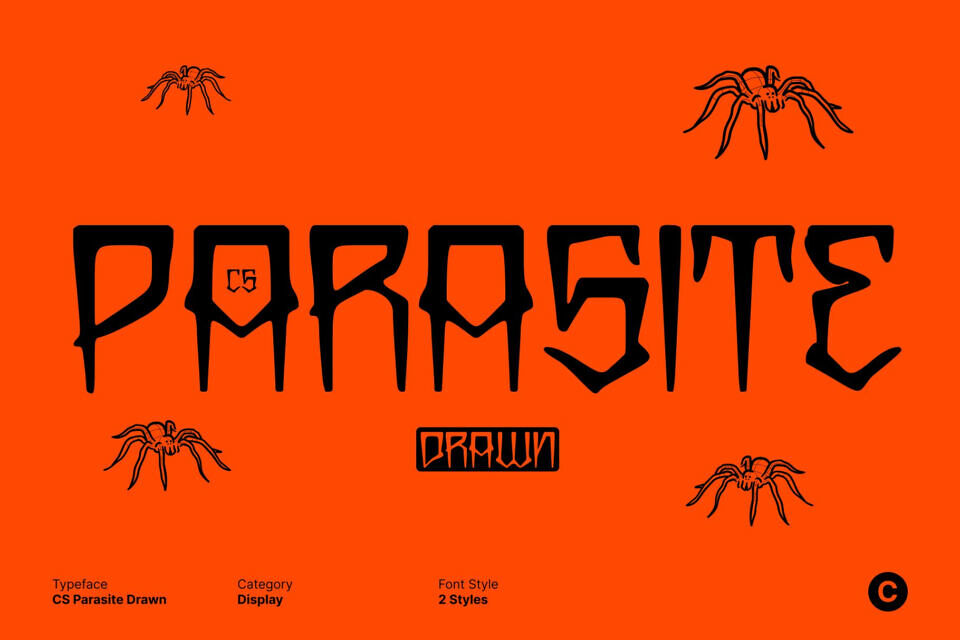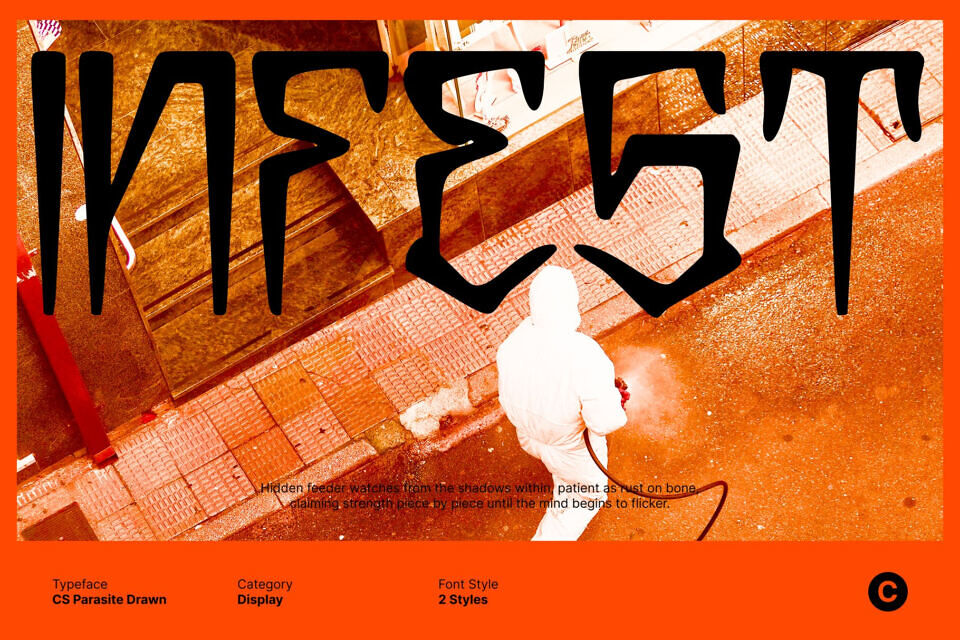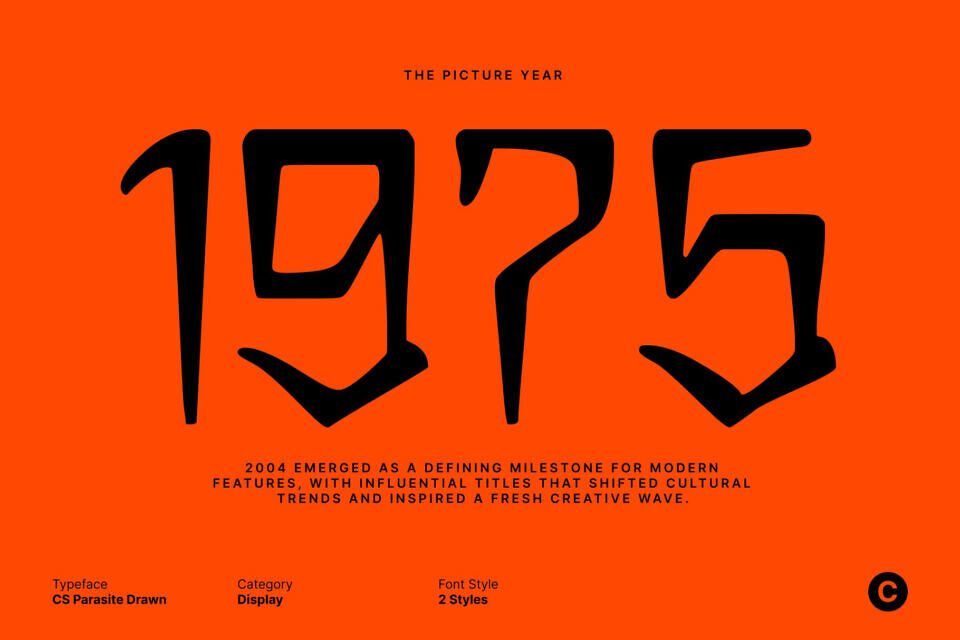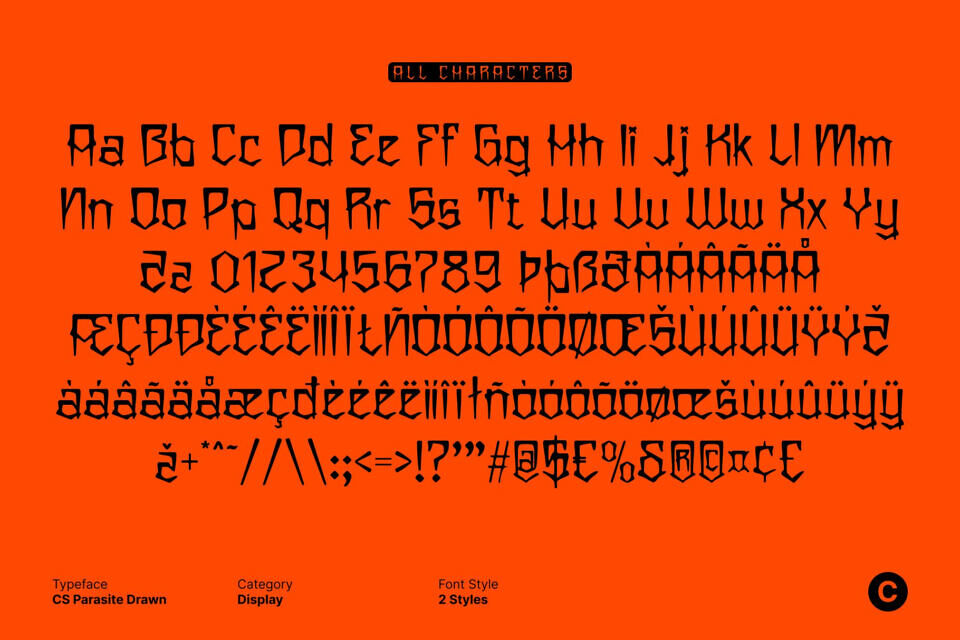
CS Parasite Drawn Font
This display font showcases a distinctive Chicano graffiti style infused with a funky, energetic vibe. Each character is crafted with bold, decorative strokes that feel alive and dynamic, giving your designs an unmistakable sense of movement and personality.
The drawn effect adds a handcrafted texture to every letter, enhancing its expressive quality and emphasizing its creative, street-inspired character. Ideal for urban-themed posters, album covers, bold branding, or any project seeking to make a statement, this font delivers an eye-catching presence. Its combination of graffiti style and handmade energy ensures your designs stand out with confidence and flair.